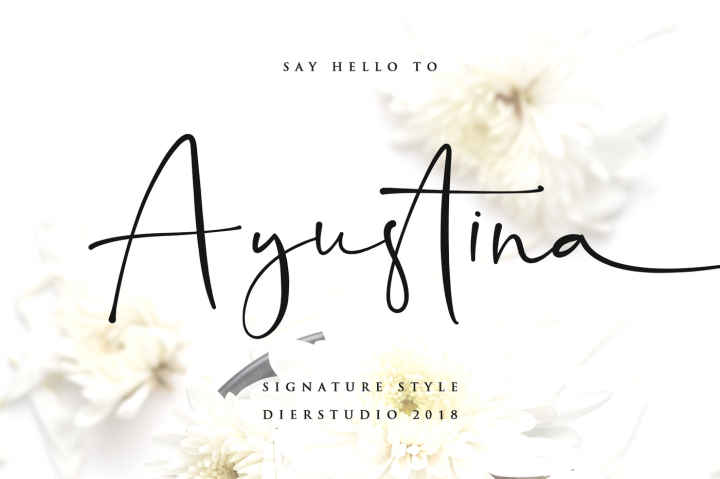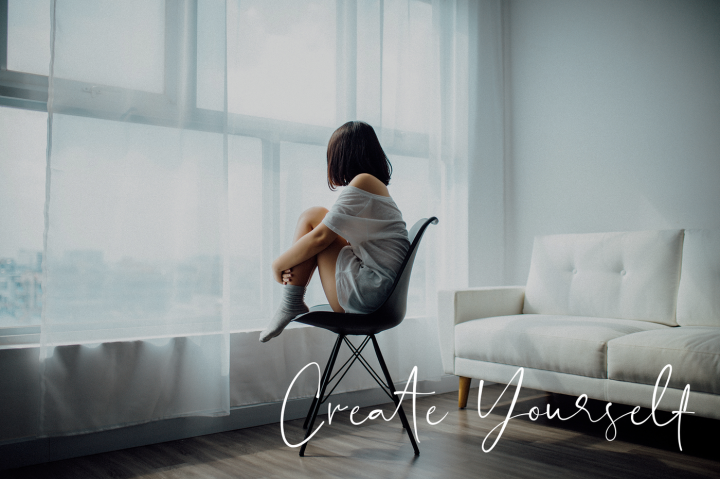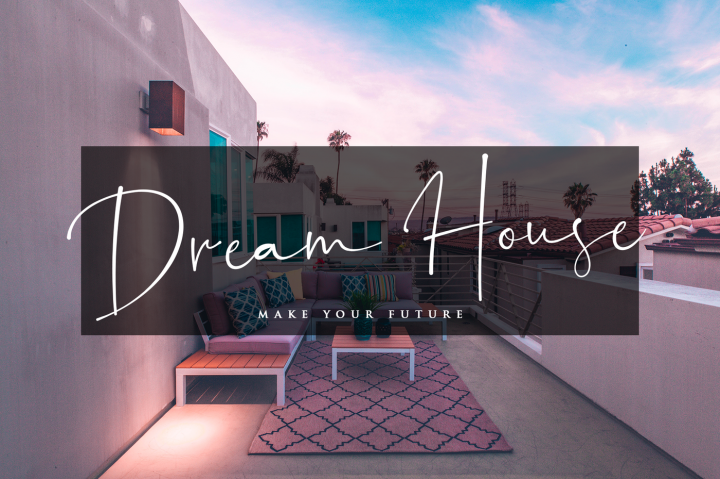
Ayustina Handwritten Font
Say hello to the ‘Ayustina’ script font – A fashionable and modern handwriting font script with some fun impression 🙂
Ayustina font was created to look as close to a natural handwritten style,
It’s highly recommended to use it Ayustina font is to use for any kind of design such as branding projects, logos, wedding designs, social media posts, advertisements, product packaging, product designs, labels, photography, watermarks, invitation, stationery and any projects.